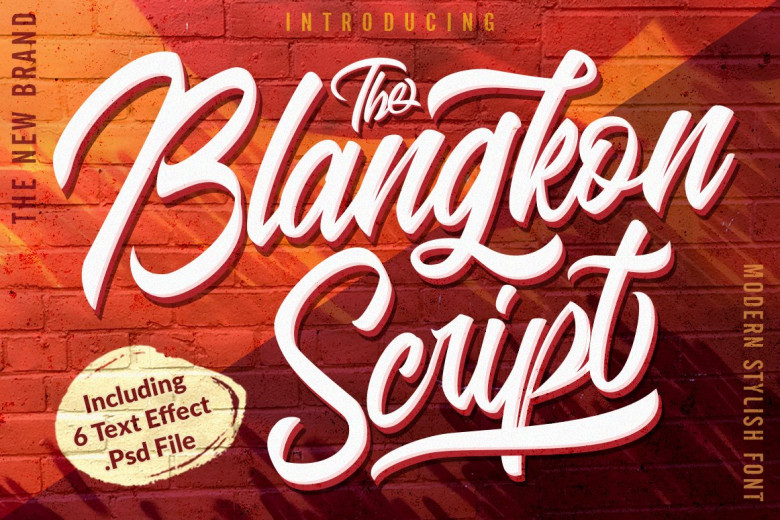
Blangkon Script Font
Blangkon Font – is a calligraphy script font created and shared by Kotak Kuning Studio. The Blangkon is an amazing script font, inspired by contemporary fashion and streetwear. It has a natural handwritten touch which will give your design a personal feel. It’s perfect for many different projects such as logos & branding, invitations, stationery, wedding designs, social media posts, advertisements, product packaging’s, and much more!